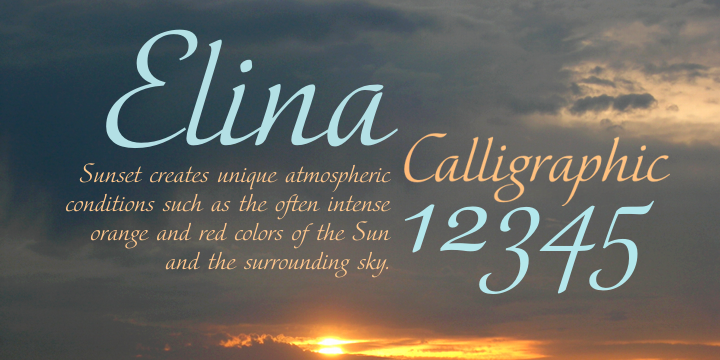
Elina Font excels in various design applications including elegant branding, feminine fashion magazines, sophisticated beauty product packaging, graceful wedding invitations, luxury spa materials, delicate jewelry advertisements, refined cosmetics labels, and gentle lifestyle publications. This graceful typeface adapts beautifully to both sophisticated digital platforms and elegant print materials, making it perfect for designers seeking feminine elegance and refined sophistication in their visual communications.
Elina Font generates excitement among creative professionals due to its graceful character and feminine styling that instantly conveys elegance and gentle sophistication. The font's delicate letterforms and refined proportions create an immediate sense of grace and feminine beauty. Its elegant personality makes it particularly appealing for brands wanting to communicate feminine charm, sophisticated elegance, and gentle refinement in their visual identity.
The Elina Font family encompasses multiple weights and styles including Regular, Bold, Light, Elegant, and Refined variations. Each family member maintains graceful design principles while offering distinct feminine characteristics. The Light weight provides subtle feminine elegance for delicate applications, while the Elegant version delivers sophisticated impact for graceful headlines and refined brand statements.
Feminine designers frequently choose Elina Font Free Download for projects requiring both elegant authenticity and sophisticated distinction. This typeface demonstrates remarkable effectiveness across beauty industries including fashion brands, cosmetics companies, spa services, and luxury lifestyle brands. Its graceful character allows organizations to communicate feminine sophistication while maintaining excellent readability and elegant visual appeal that resonates with audiences seeking refined beauty and sophisticated feminine experiences.